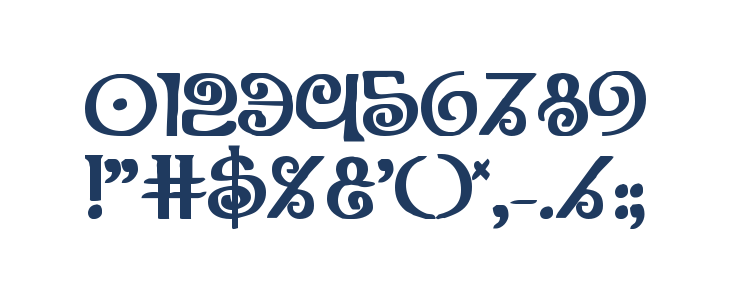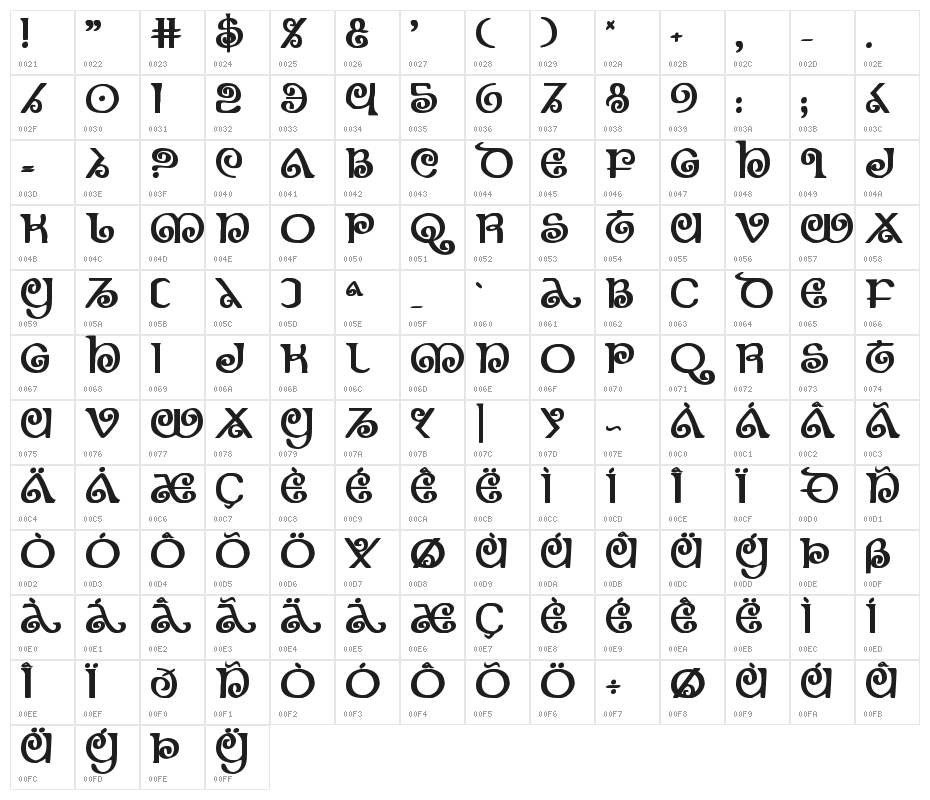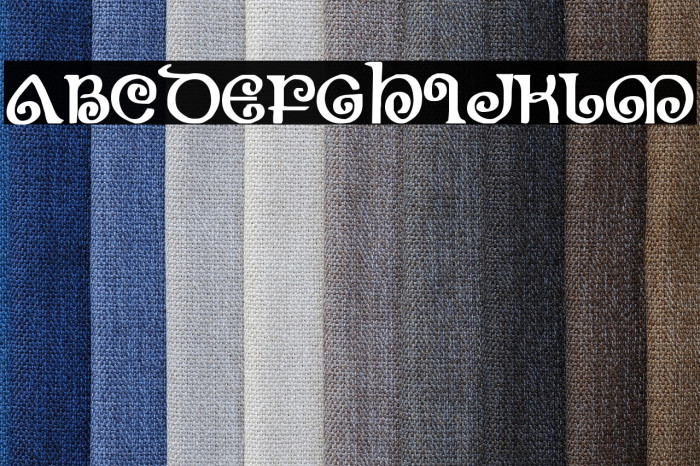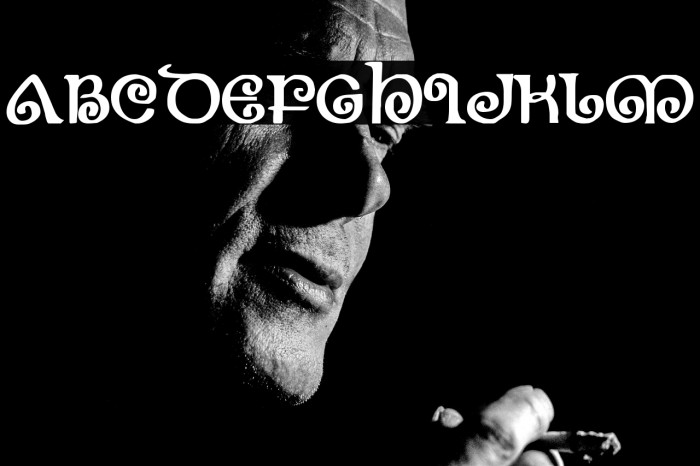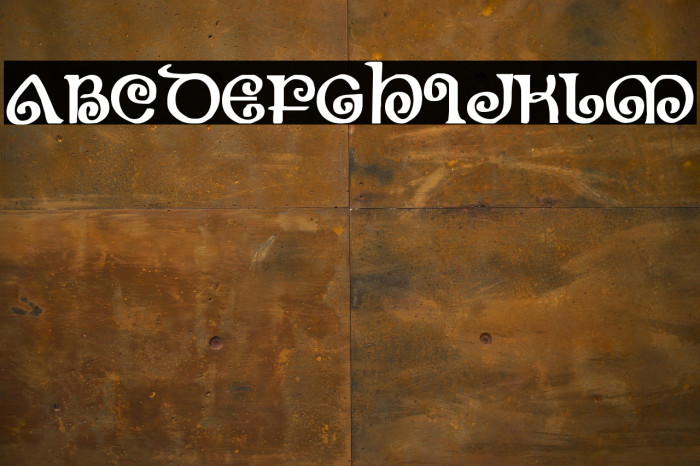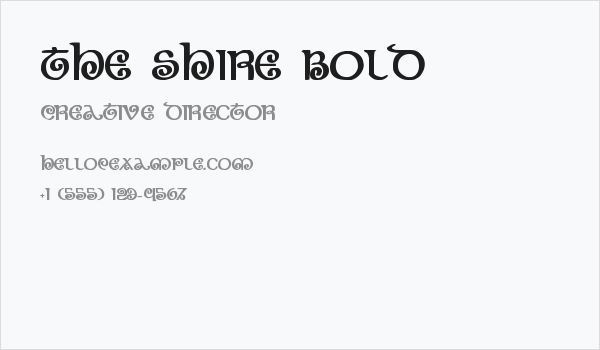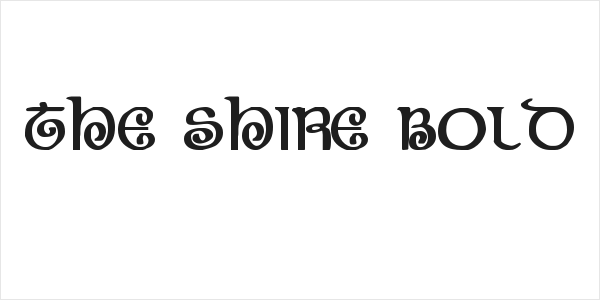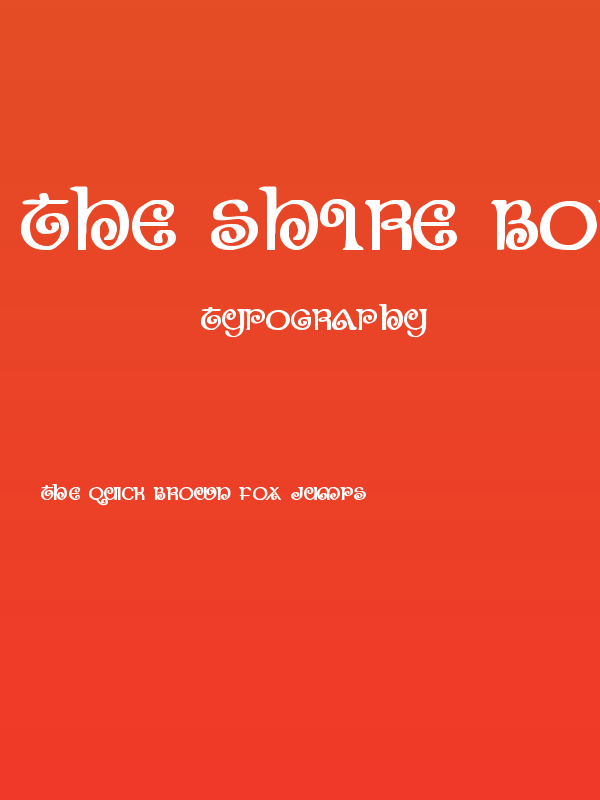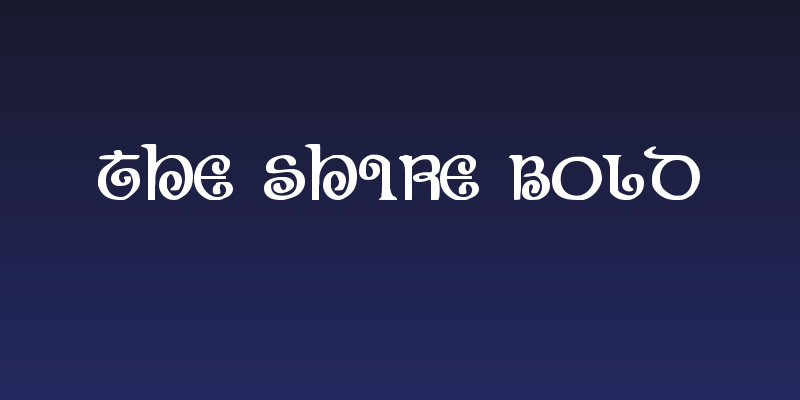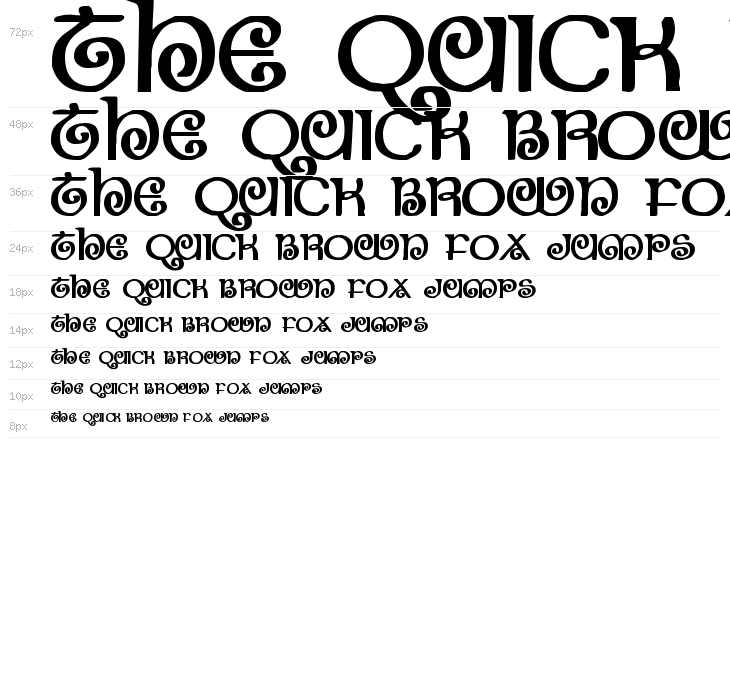
The Shire Bold Font
The Shire Bold Description
This font features a whimsical and decorative style, characterized by its unique and playful curves. The letters exhibit a bold and artistic flair, with intricate swirls and loops that give it a fantasy-like appearance. The uppercase and lowercase letters maintain a consistent design, with each character showcasing elaborate details. Numbers and special characters are equally ornate, making the font suitable for creative and imaginative projects. Its boldness and decorative elements make it stand out, while still maintaining legibility.
| Proposed Projects | Ideal for fantasy-themed designs, book covers, posters, and creative branding projects. |